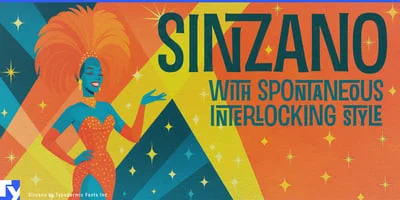
Sinzano Font
Sinzano Font is perfect for Italian restaurants, wine bars, Mediterranean cafes, gourmet food packaging, artisan product labels, luxury culinary branding, romantic dining establishments, heritage food companies, and authentic European communications. This elegant typeface brings Mediterranean sophistication and culinary artistry to projects requiring refined taste and authentic European charm.
What makes Sinzano Font exciting is its Mediterranean elegance that captures the essence of Italian craftsmanship and European culinary tradition with remarkable sophistication and authentic cultural character that evokes la dolce vita lifestyle. The font features graceful letterforms with artistic flair and sophisticated proportions that reflect the refined aesthetics of Mediterranean design and Italian artistic heritage. Its cultured personality and European sensibility make it irresistible for luxury food brands seeking typography that communicates authentic Mediterranean sophistication while celebrating artisanal quality and traditional European craftsmanship.
The Sinzano Font family includes elegant weights and European styles: Light, Regular, Medium, Bold, and script variations with decorative alternates and Mediterranean symbols. Each weight maintains the font's sophisticated character while offering designers creative flexibility for culinary branding and European design applications requiring authentic Mediterranean atmosphere and luxury food presentation.
Whether you're designing for fine dining or gourmet brands, Sinzano Font offers designers an elegant, Mediterranean-focused typeface solution. The font's European aesthetics and sophisticated styling make it ideal for Italian restaurants, wine importers, gourmet food producers, and luxury hospitality venues. Its refined presence ensures your message communicates culinary sophistication and European authenticity while maintaining beautiful readability. The comprehensive character set includes Mediterranean symbols and culinary decorations, making it perfect for creating appetizing headlines and brand identities that celebrate European food culture and establish memorable connections with audiences seeking authentic Mediterranean dining experiences and sophisticated European cuisine.